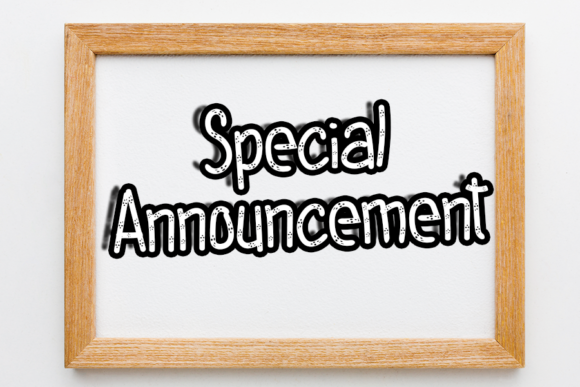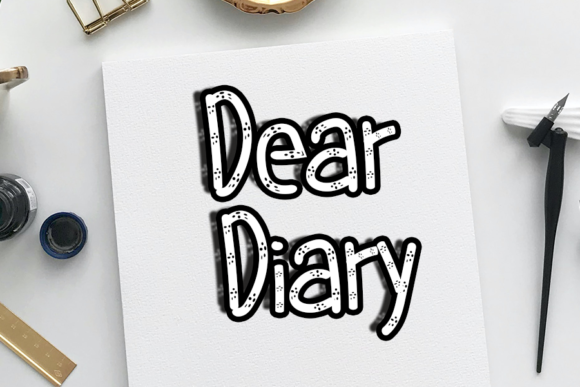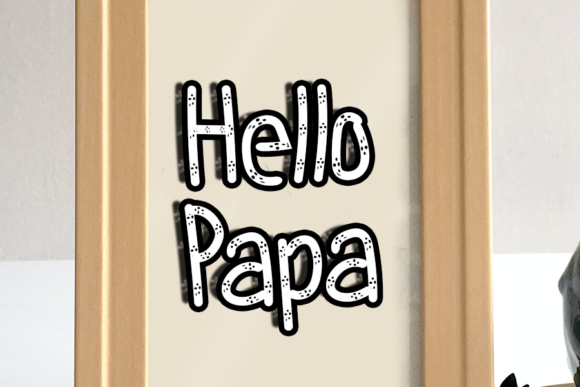
Introducing Christmas Diary Font: The Ultimate Festive Display Font
Are you looking for a font that can add a touch of festive magic to your designs? Look no further than Christmas Diary Font! This bold yet festive display font is designed to help you take your creative ideas to the next level. With its unique and eye-catching style, Christmas Diary Font is sure to become a top choice for designers and crafters alike.
What Makes Christmas Diary Font So Special?
Christmas Diary Font is a one-of-a-kind font that is specifically designed to capture the spirit of the holiday season. Its bold and festive style makes it perfect for use in a variety of design projects, from holiday cards and invitations to festive posters and social media graphics. Whether you’re a professional designer or a crafter looking to add a personal touch to your projects, Christmas Diary Font is the perfect choice.
Key Features of Christmas Diary Font
- Bold and Festive Style: Christmas Diary Font features a bold and festive style that is sure to grab attention.
- Unique and Eye-Catching: This font has a unique and eye-catching style that will set your designs apart from the rest.
- Easy to Read: Despite its bold style, Christmas Diary Font is easy to read, making it perfect for use in a variety of design projects.
- Versatile: This font can be used in a variety of design projects, from holiday cards and invitations to festive posters and social media graphics.
How to Use Christmas Diary Font in Your Designs
Christmas Diary Font is easy to use in a variety of design projects. Here are a few ideas to get you started:
- Holiday Cards and Invitations: Use Christmas Diary Font to add a festive touch to your holiday cards and invitations.
- Festive Posters: Create eye-catching festive posters using Christmas Diary Font.
- Social Media Graphics: Use Christmas Diary Font to add a festive touch to your social media graphics.
- Crafting Projects: Add a personal touch to your crafting projects, such as scrapbooking and DIY gifts, using Christmas Diary Font.
Why Choose Christmas Diary Font?
There are many fonts to choose from, but Christmas Diary Font stands out from the rest. Here are a few reasons why:
- Unique Style: Christmas Diary Font has a unique and eye-catching style that will set your designs apart from the rest.
- High-Quality: This font is designed to be high-quality and easy to read, making it perfect for use in a variety of design projects.
- Festive Spirit: Christmas Diary Font captures the spirit of the holiday season, making it perfect for use in festive designs.
Tips and Tricks for Using Christmas Diary Font
Here are a few tips and tricks for using Christmas Diary Font in your designs:
- Use it Sparingly: Use Christmas Diary Font sparingly to add a touch of festive magic to your designs.
- Pair it with Other Fonts: Pair Christmas Diary Font with other fonts to create a unique and eye-catching design.
| Font Name | Christmas Diary Font |
| Author | merge354 |
Christmas Diary Font is a bold yet festive display font that is sure to become a top choice for designers and crafters alike. With its unique and eye-catching style, this font is perfect for use in a variety of design projects, from holiday cards and invitations to festive posters and social media graphics. Whether you’re a professional designer or a crafter looking to add a personal touch to your projects, Christmas Diary Font is the perfect choice.